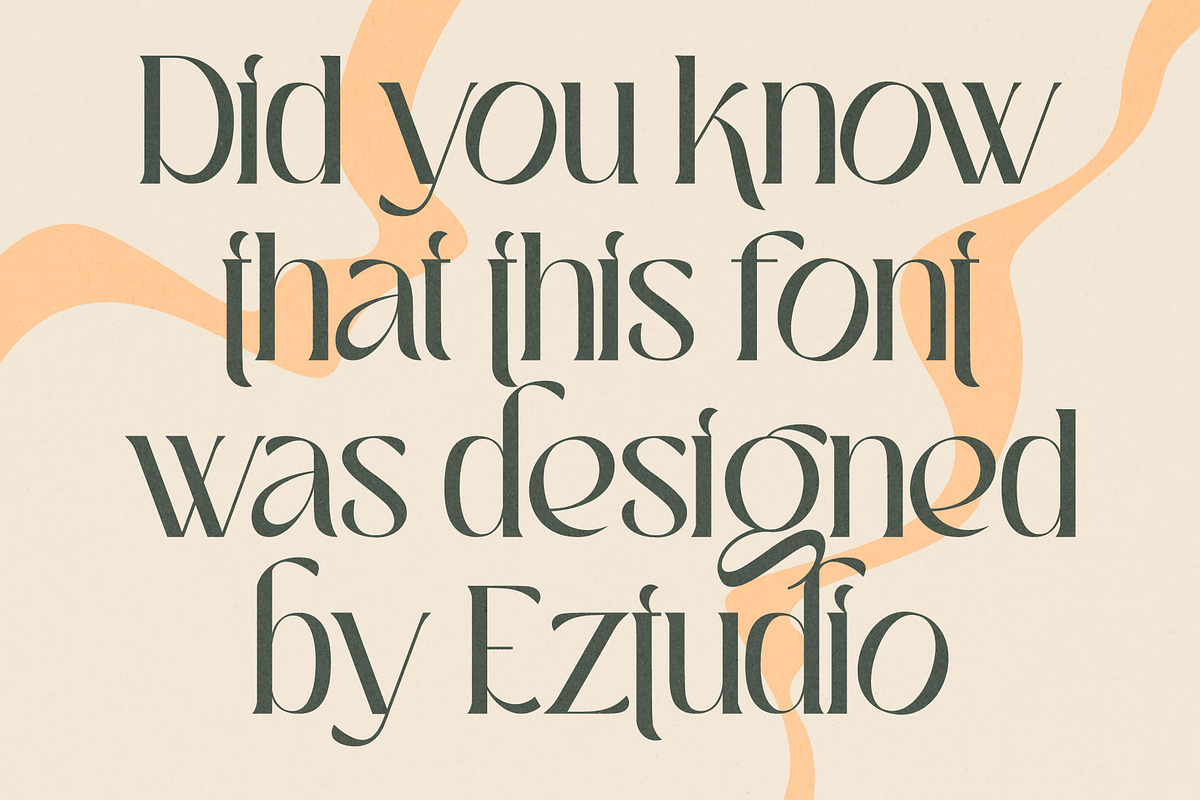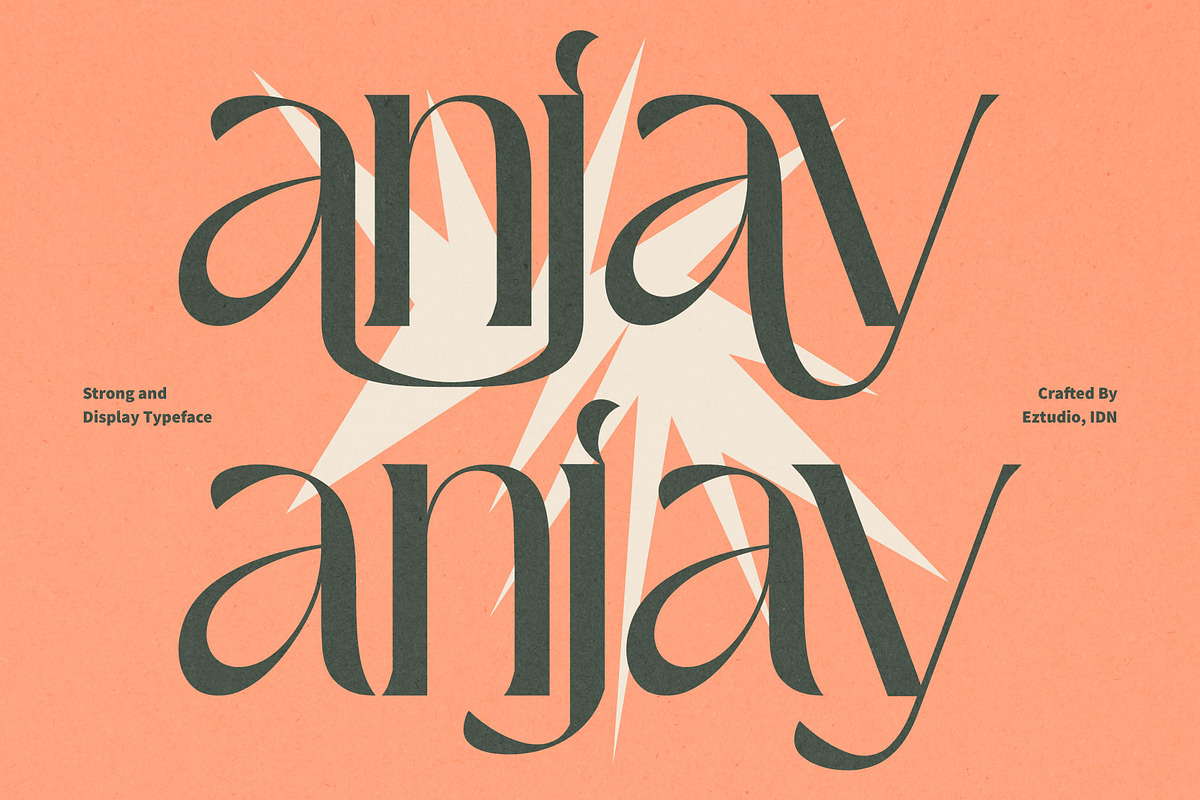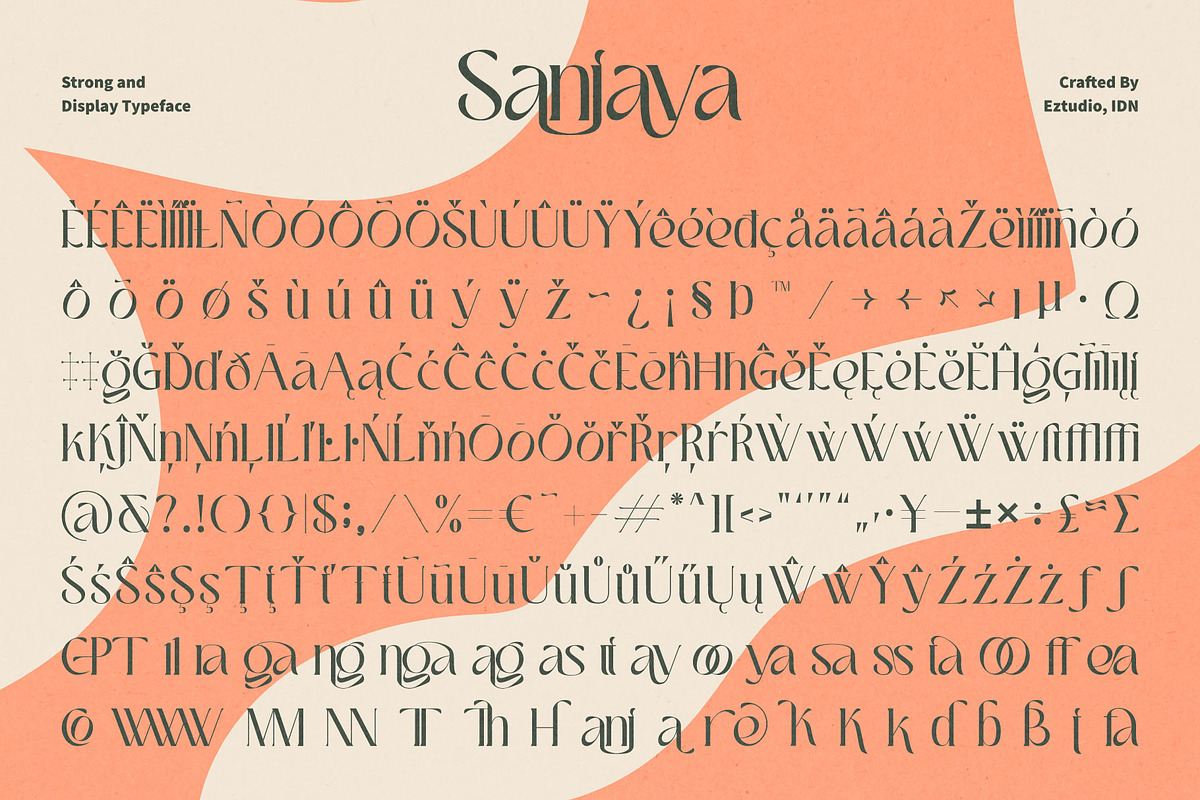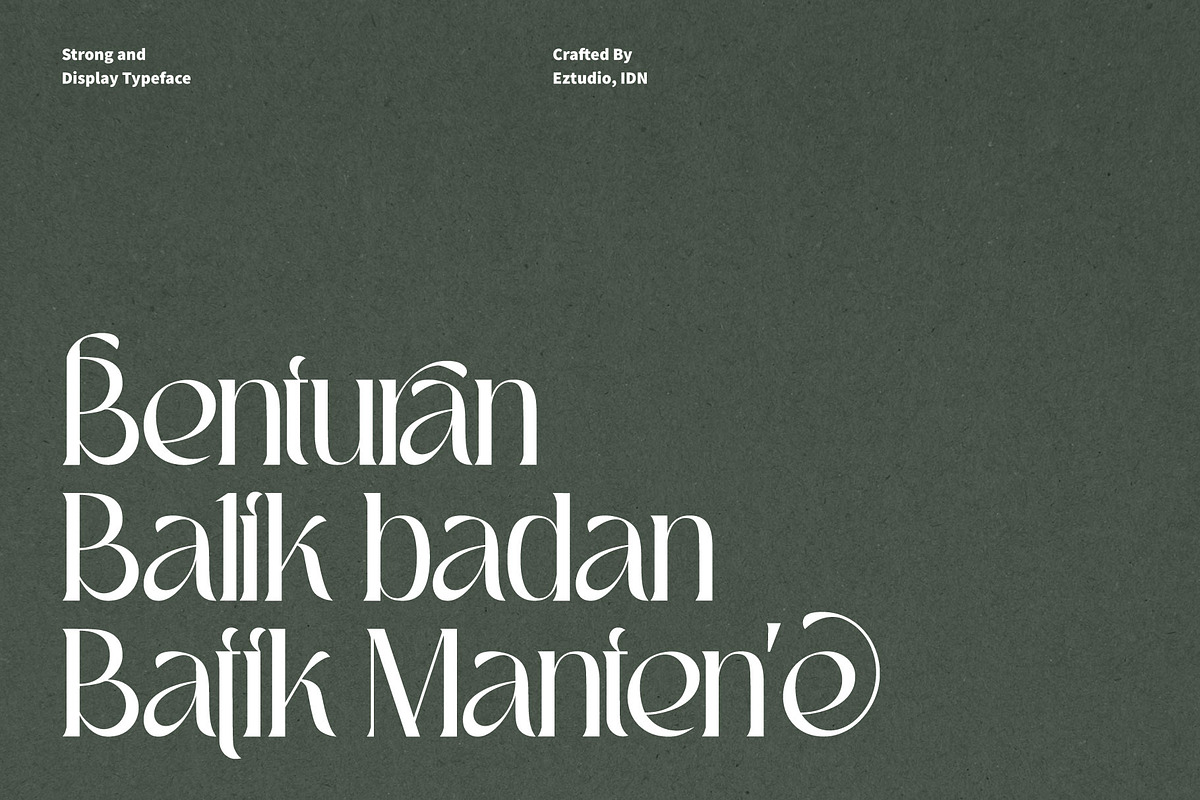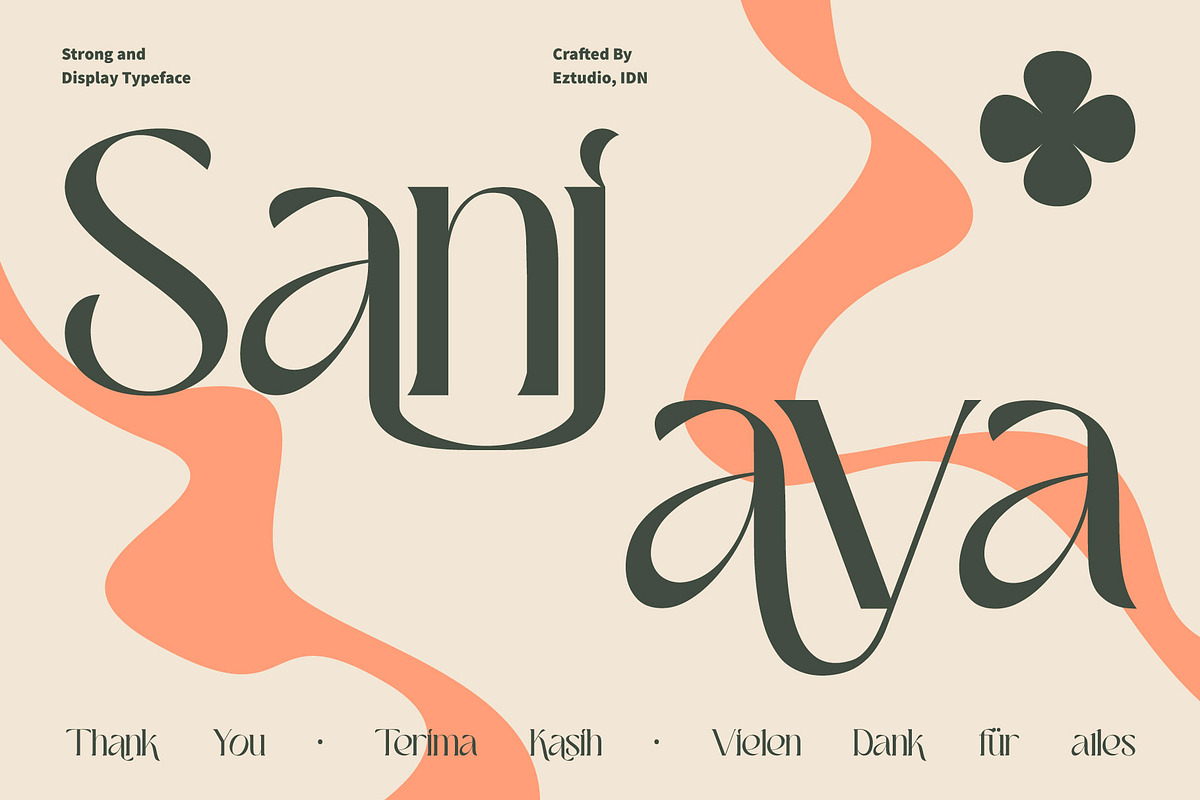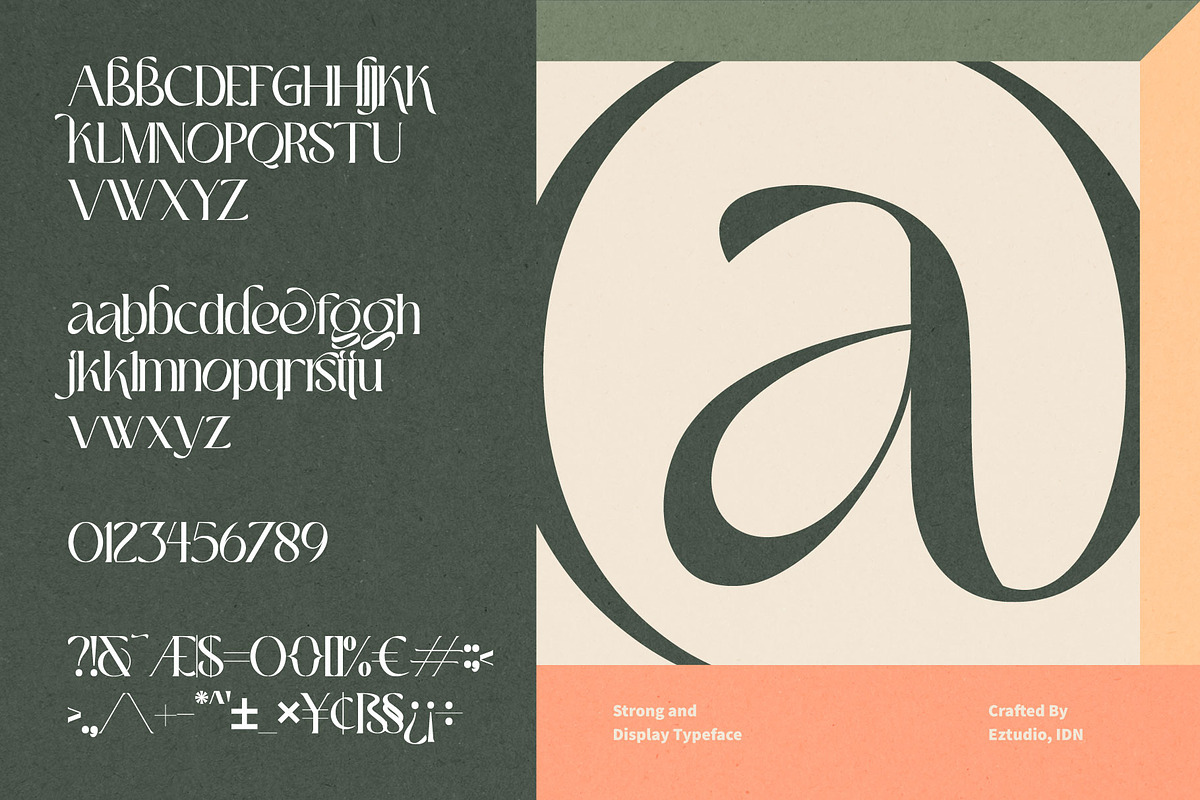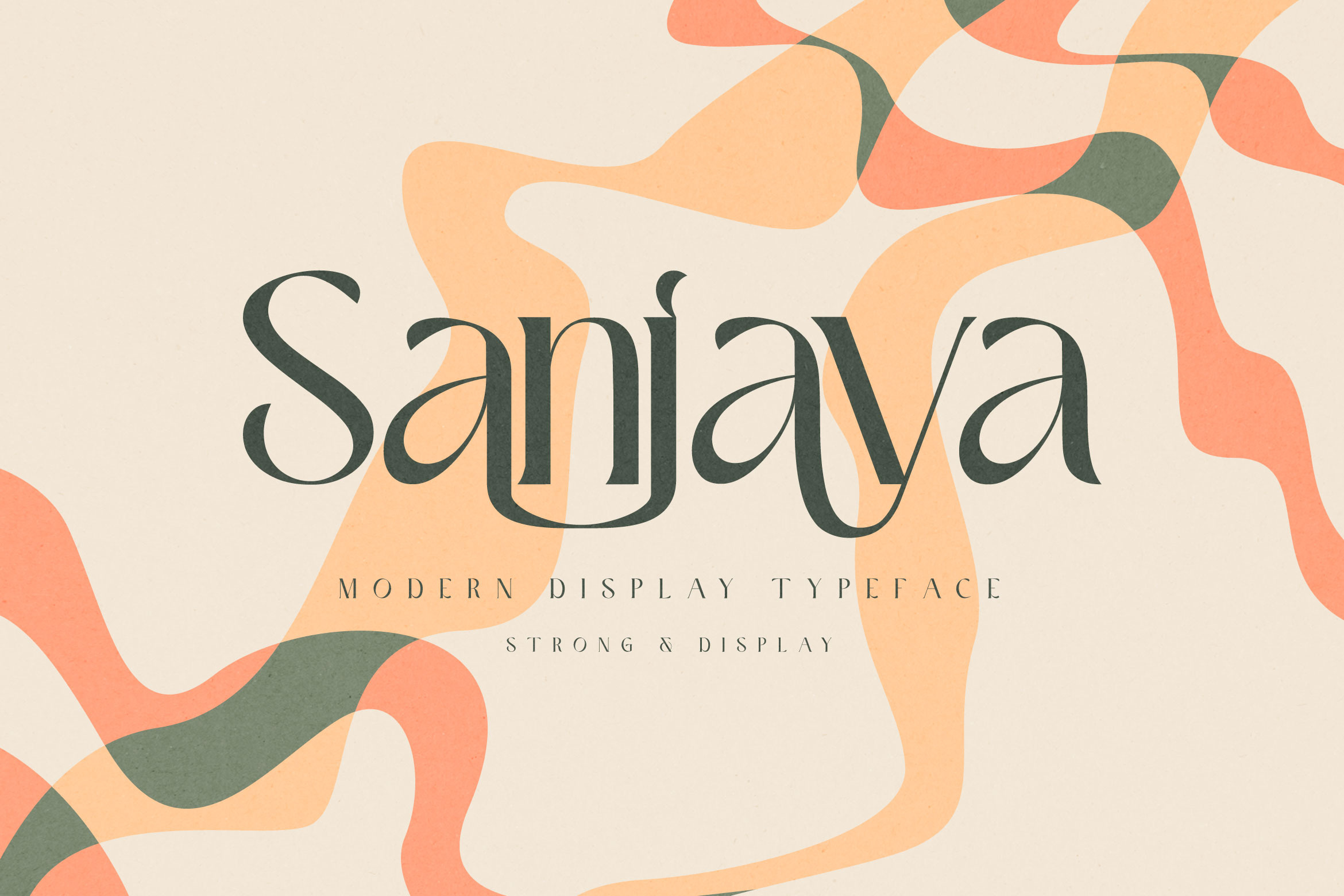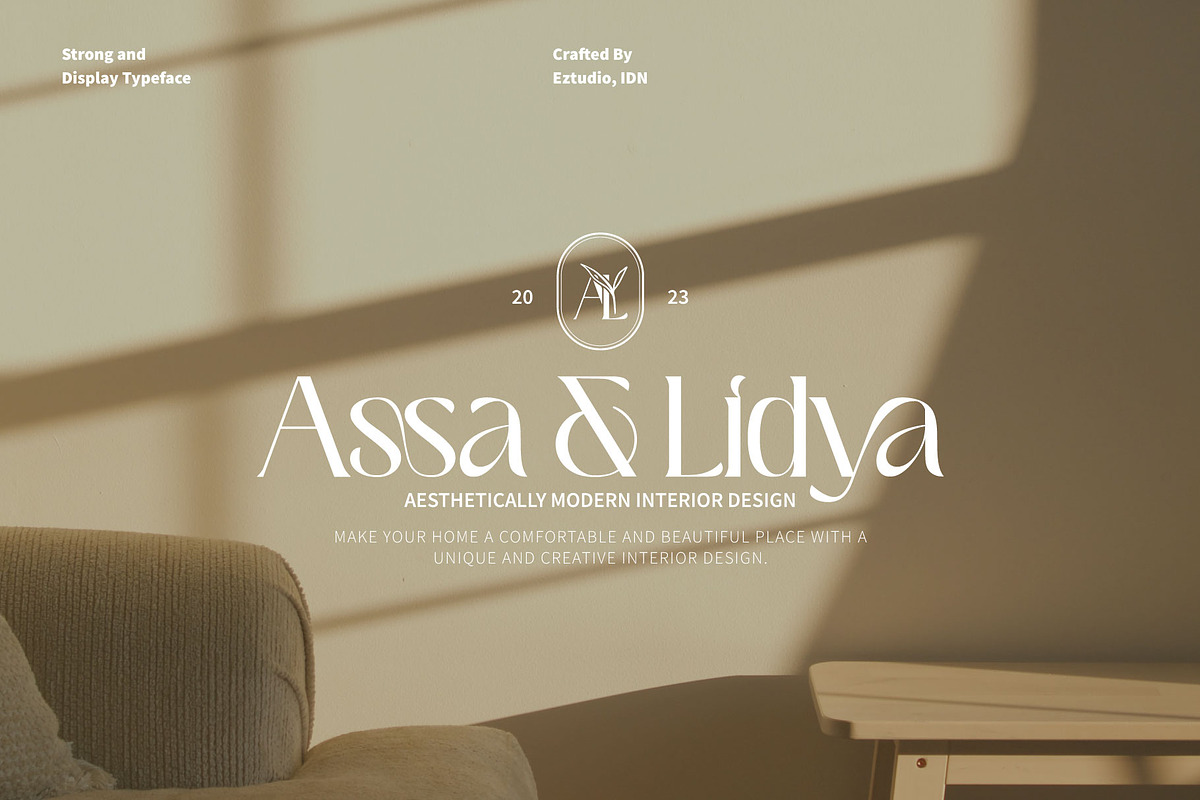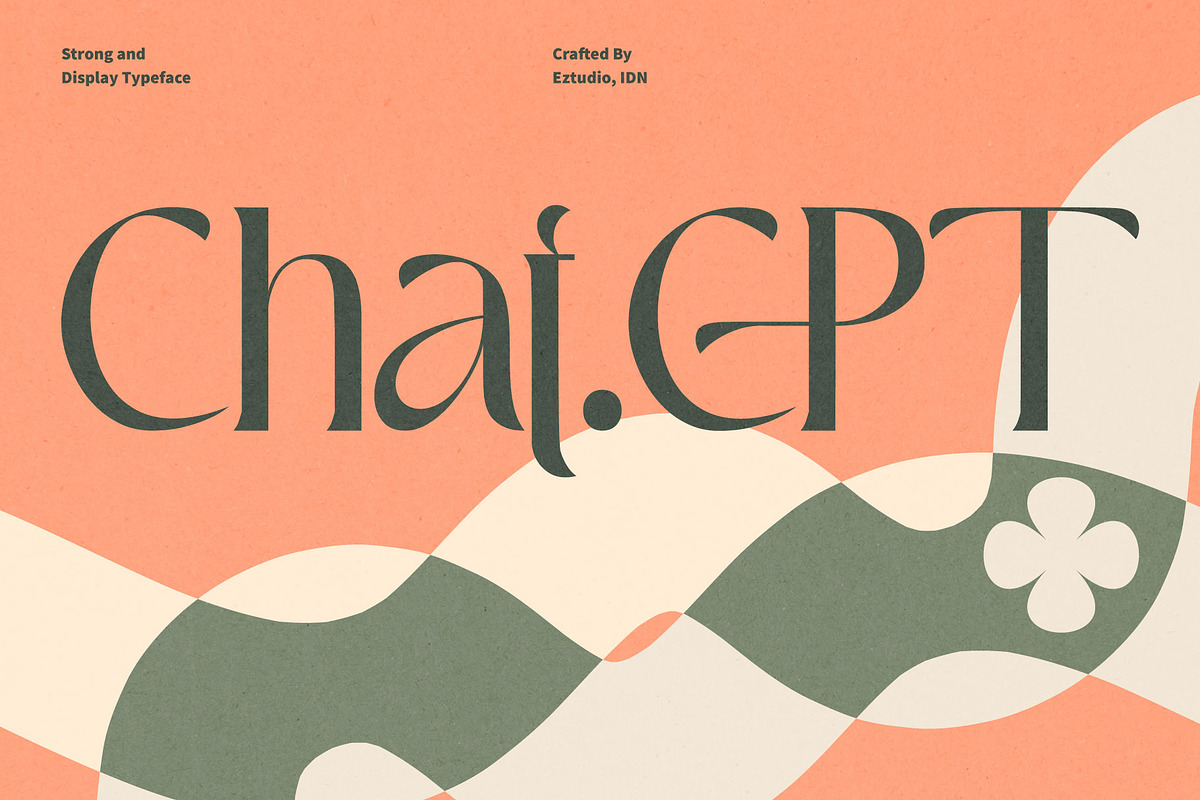
Ez-Sanjaya - Modern Decorative Font
Ez-Sanjaya is a modern decorative font that brings a fresh and contemporary touch to any design project. Its clean lines and bold strokes make it an eye-catching choice for branding, advertising, and packaging. The font features unique ligatures and alternates, giving designers endless creative possibilities. Ez-Sanjaya is perfect for titles, headlines, logos, and other design elements that require a strong and impactful visual presence. Its versatile nature allows it to work well in both digital and print applications. Whether you're designing a website, a poster, or a product label, Ez-Sanjaya is the perfect choice for adding a touch of modern sophistication to your design.
The Ez-Sanjaya font includes:
- Uppercase Letters
- Lowercase Letters
- Special Characters
- Multilingual Glyphs